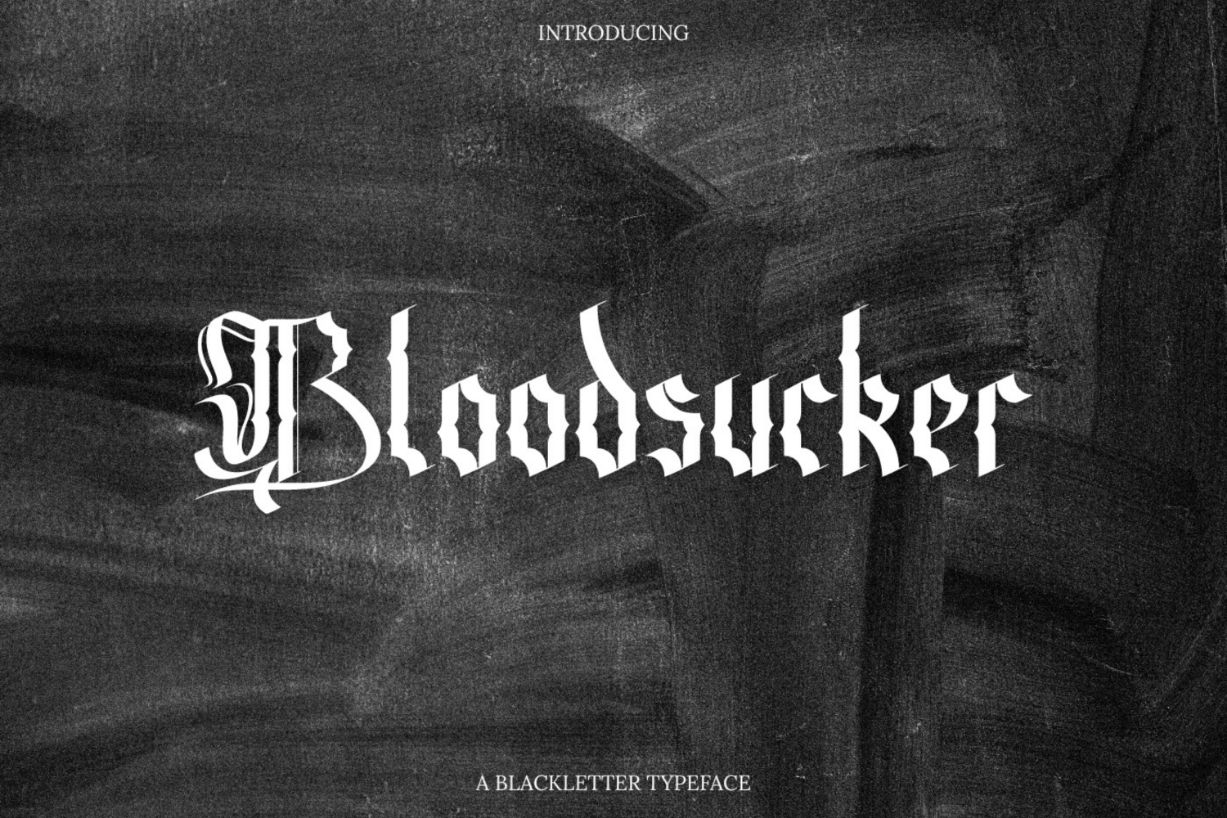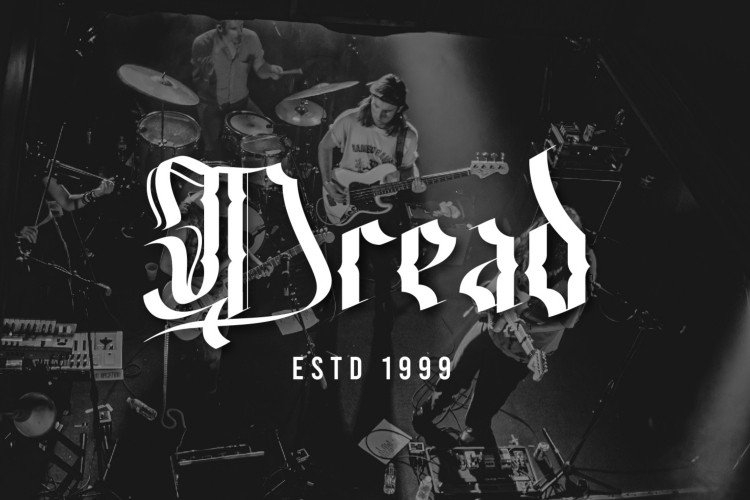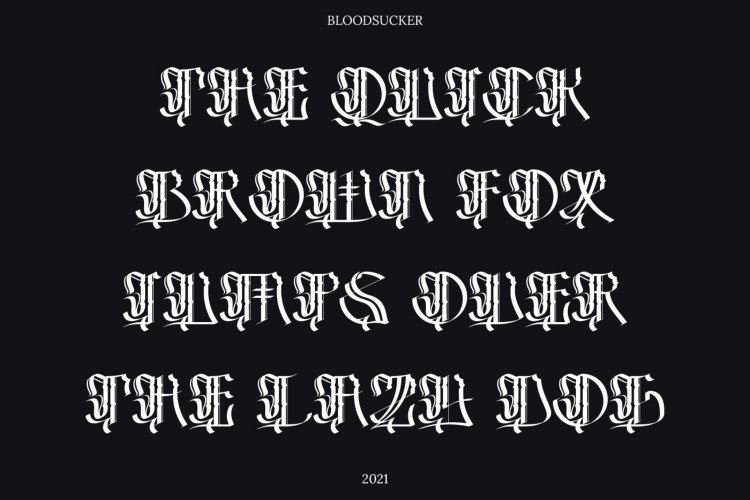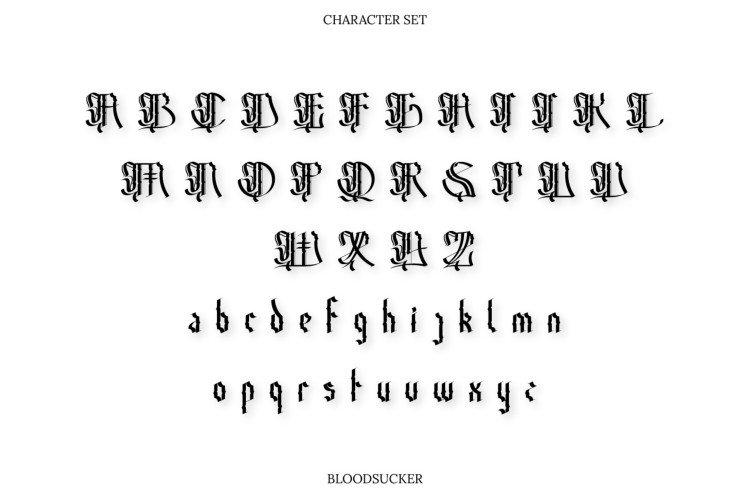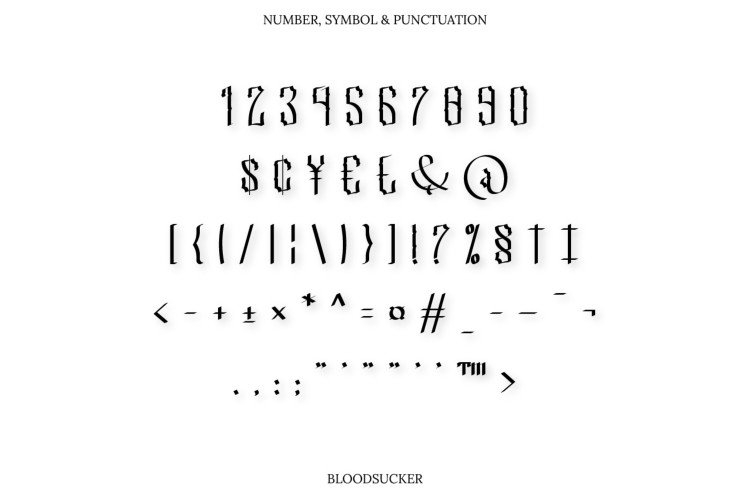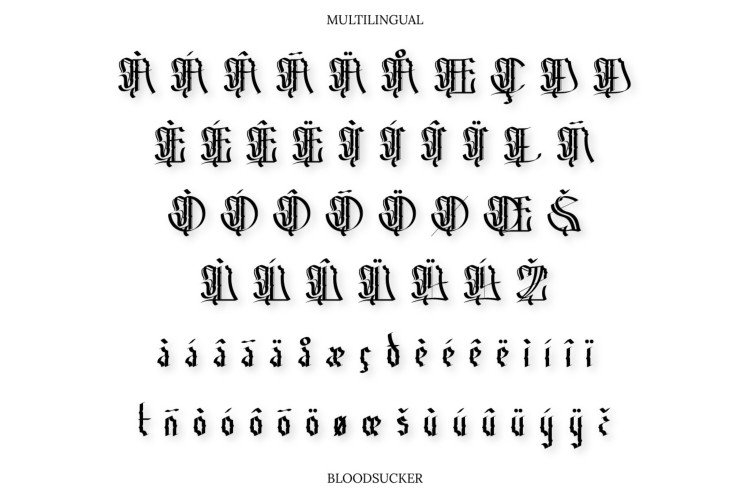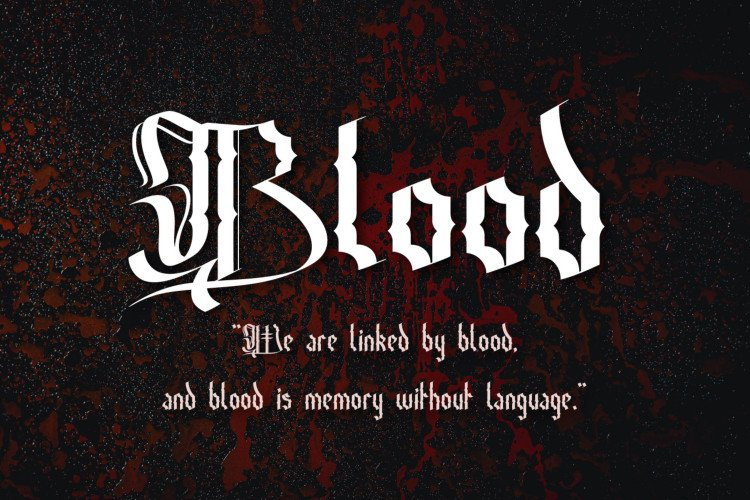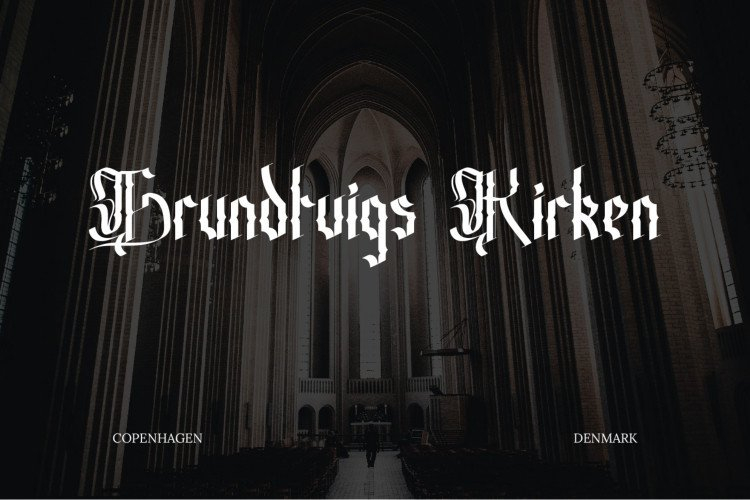
Bloodsucker Font
About Bloodsucker Font
Bloodsucker is a unique distinct blackletter font with a strong, Gothic vibe. Fall in love with its incredibly versatile style and use it to create spectacular designs!